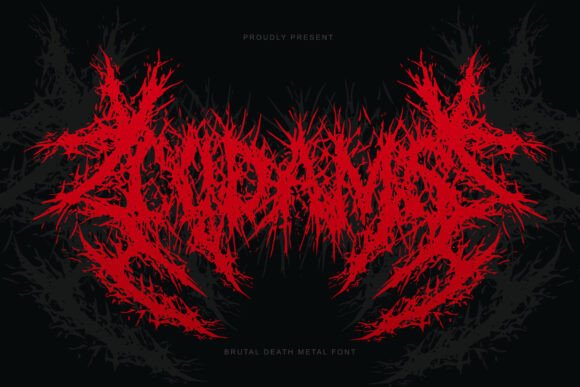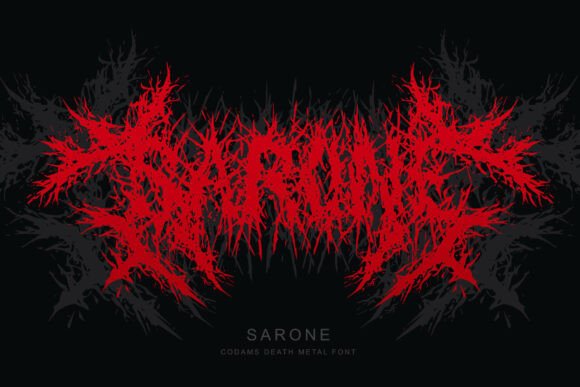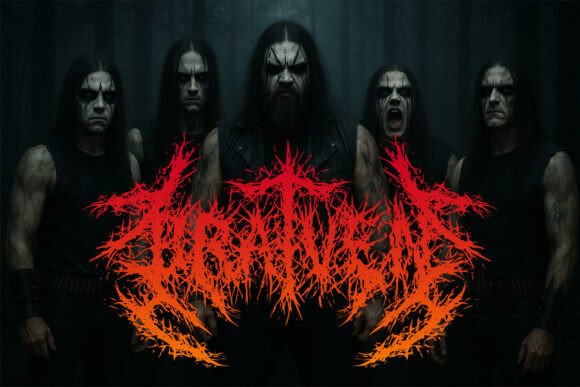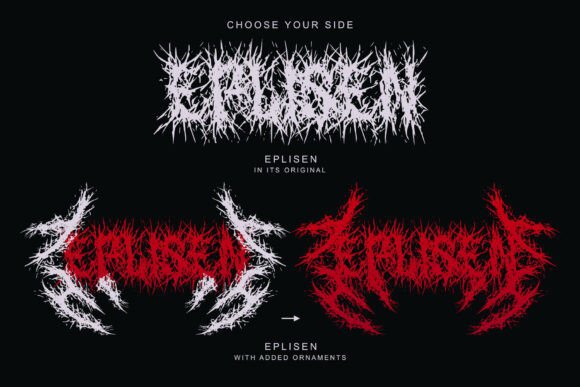
Codams Font
About the Codams Font
Presenting Codams Font, a unique and stylish typeface that will make your work stand out. Awaken the chaos with Codmas, a font forged from the ferocity of Brutal Death Metal. Inspired by the relentless aggression and dark majesty of the genre, Codmas captures the essence of destruction, raw energy, and uncompromising power. This is not just a typeface—it’s a weapon for those who live and create on the edge.
Codams excels in large-scale applications such as posters, album art, and logotypes for bands or brands that embody raw power and rebellion. Its aggressive forms are also effective for headlines and short, impactful text snippets. However, its highly stylized nature makes it unsuitable for body copy or UI elements where readability is paramount. Extended use will severely impair legibility.
Pairing Codams successfully requires a contrasting typeface to balance its intensity. A clean, geometric sans-serif like Futura or a neutral serif like Garamond would provide a strong counterpoint. For a more aggressive aesthetic, consider pairing it with a similarly bold, but simpler blackletter font.
Codams projects a bold, uncompromising, and rebellious personality. It’s ideal for projects that demand a visceral, high-impact aesthetic, perfectly suited to conveying themes of power, aggression, or darkness.
Codams Font Usage Examples
Codams Font Example